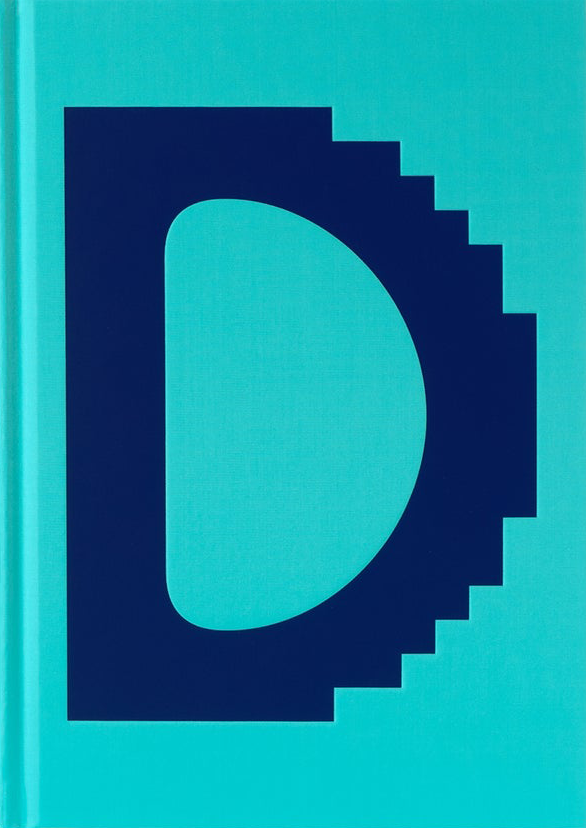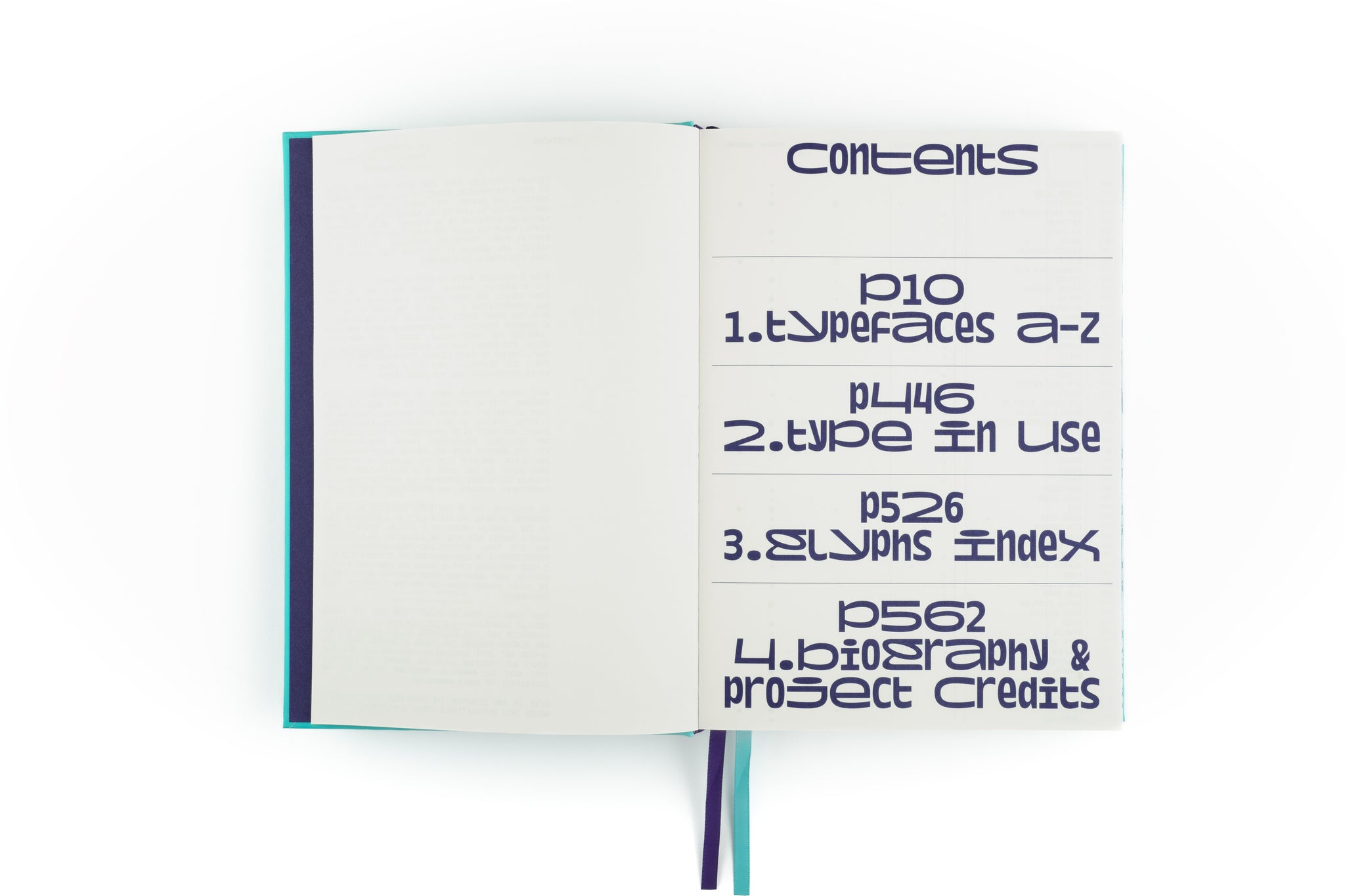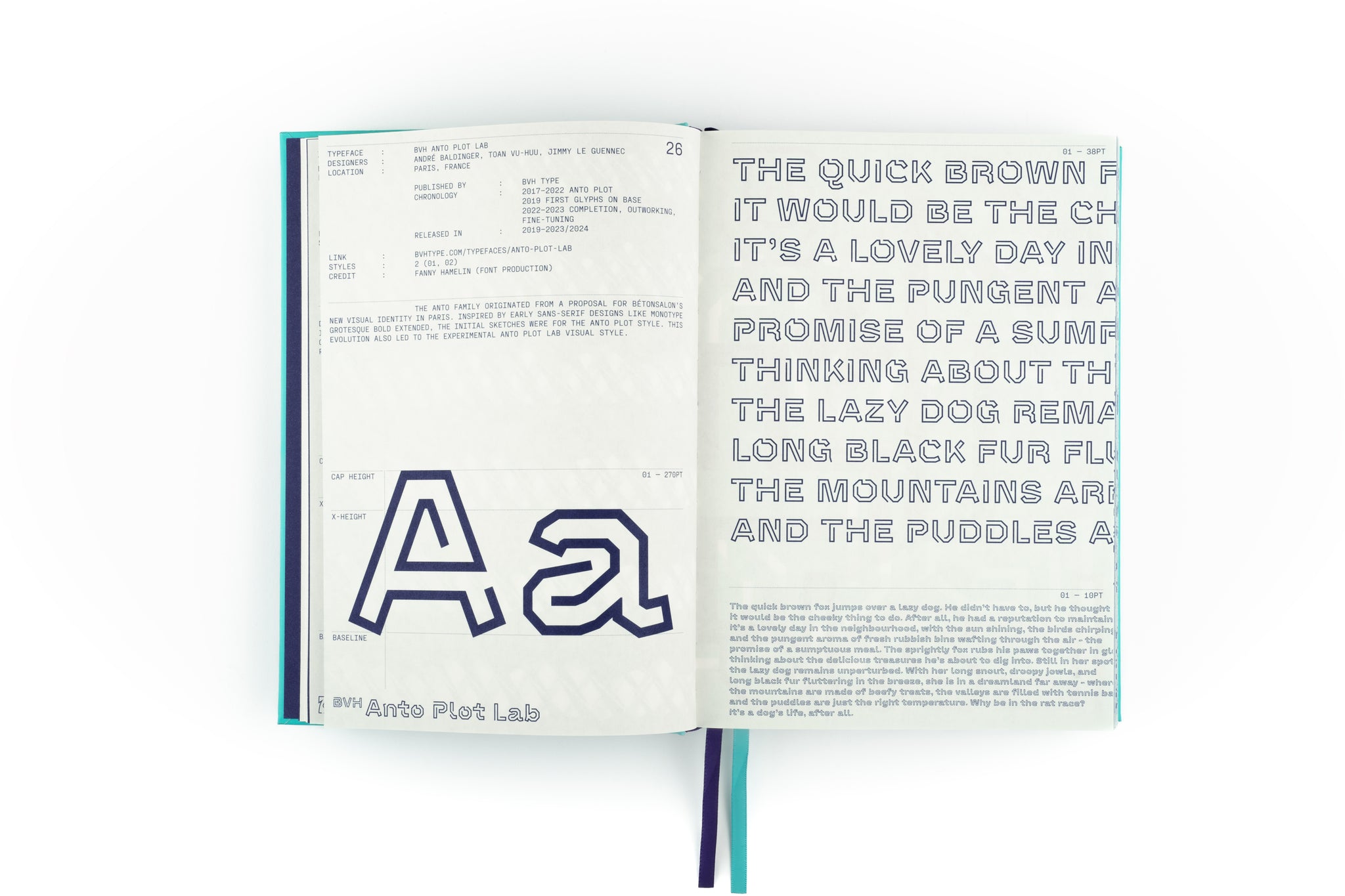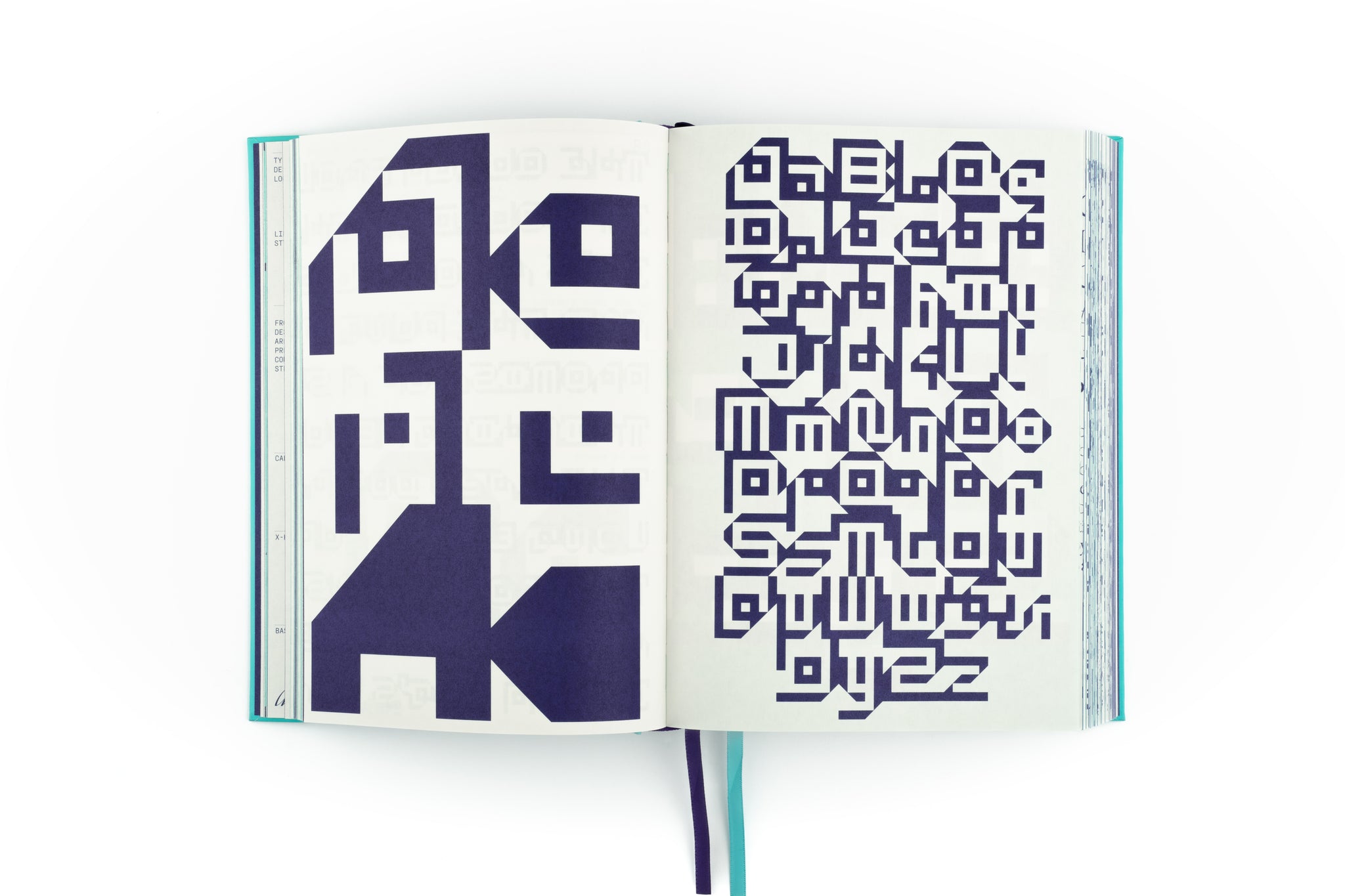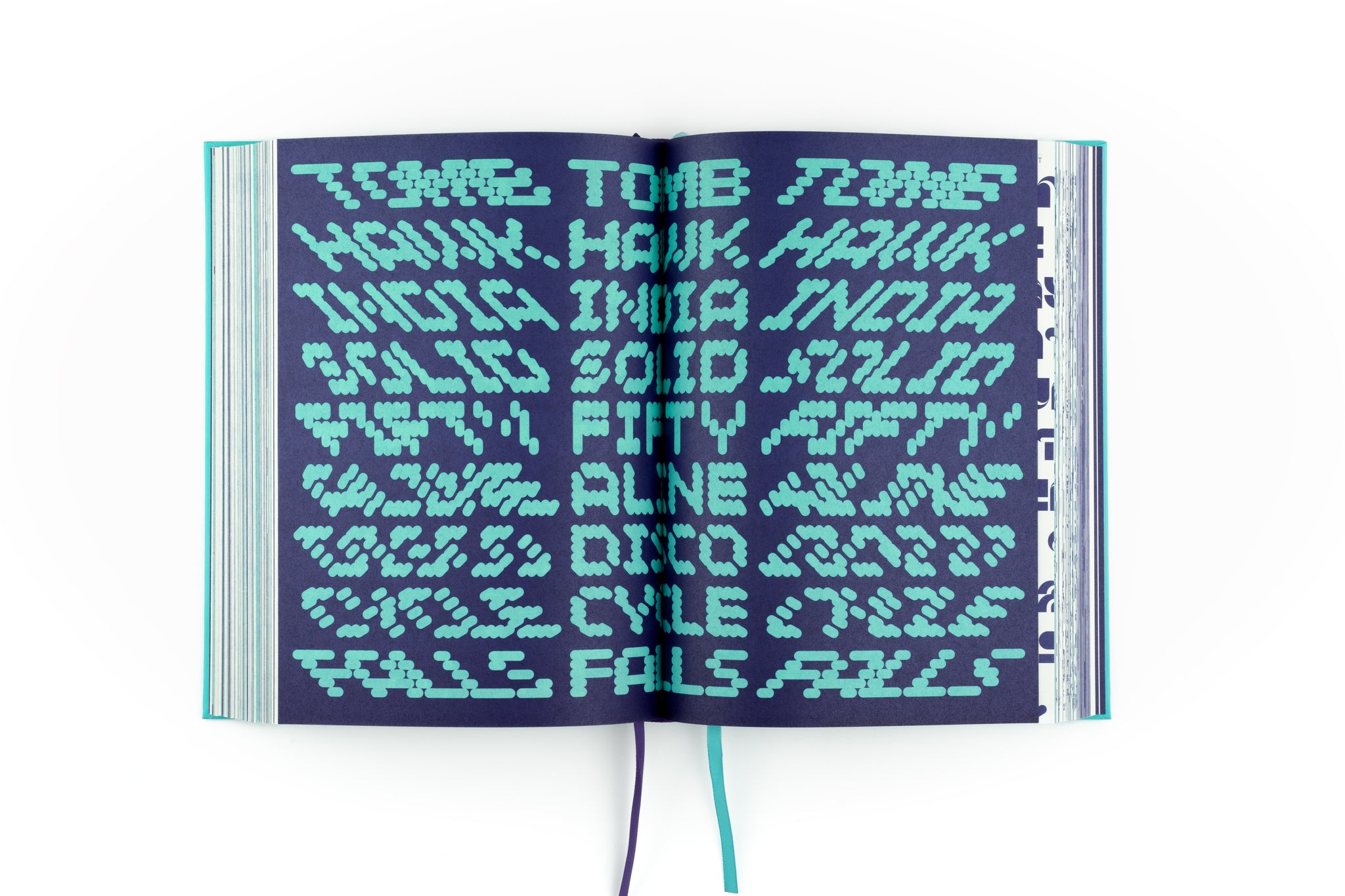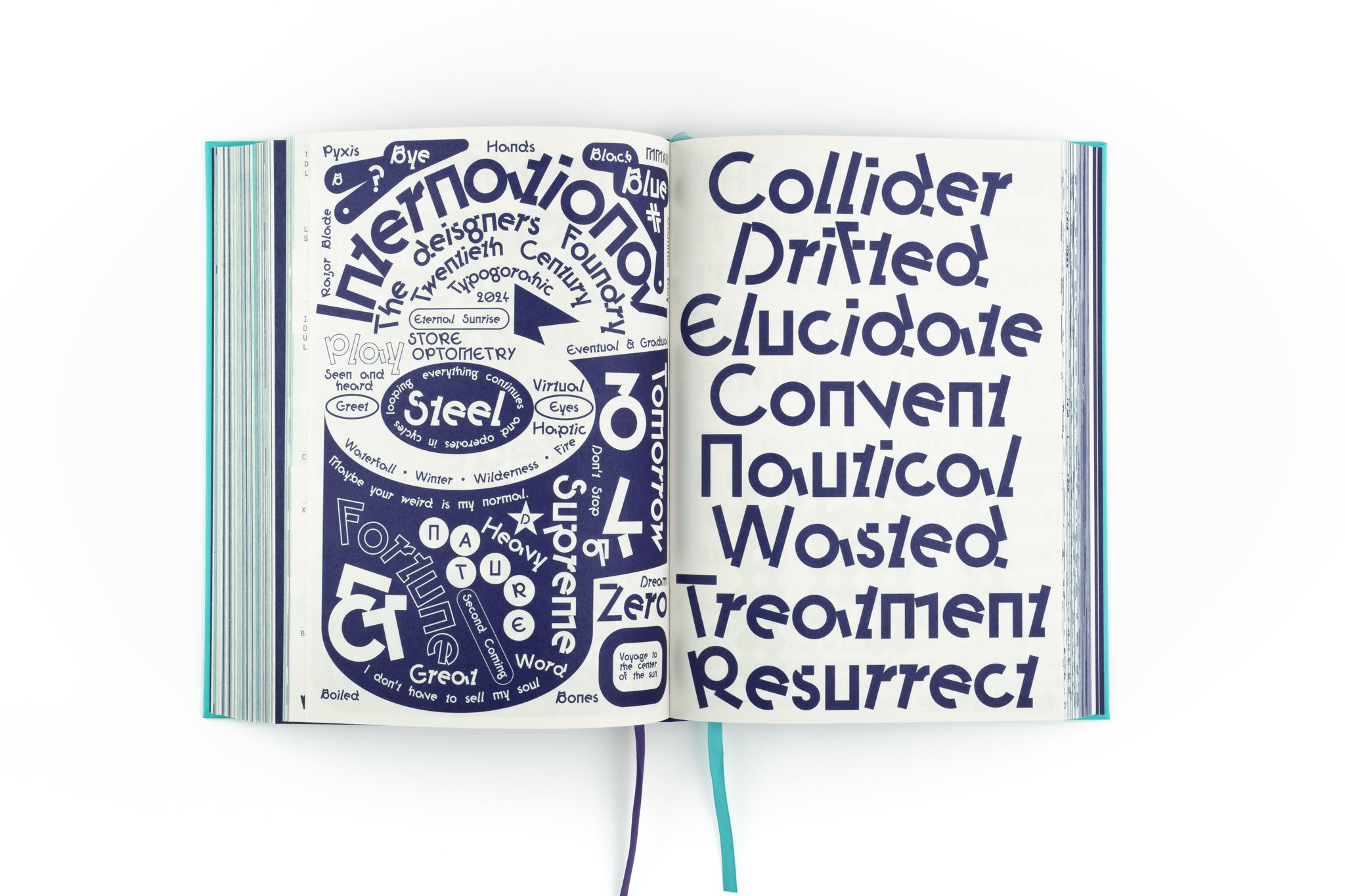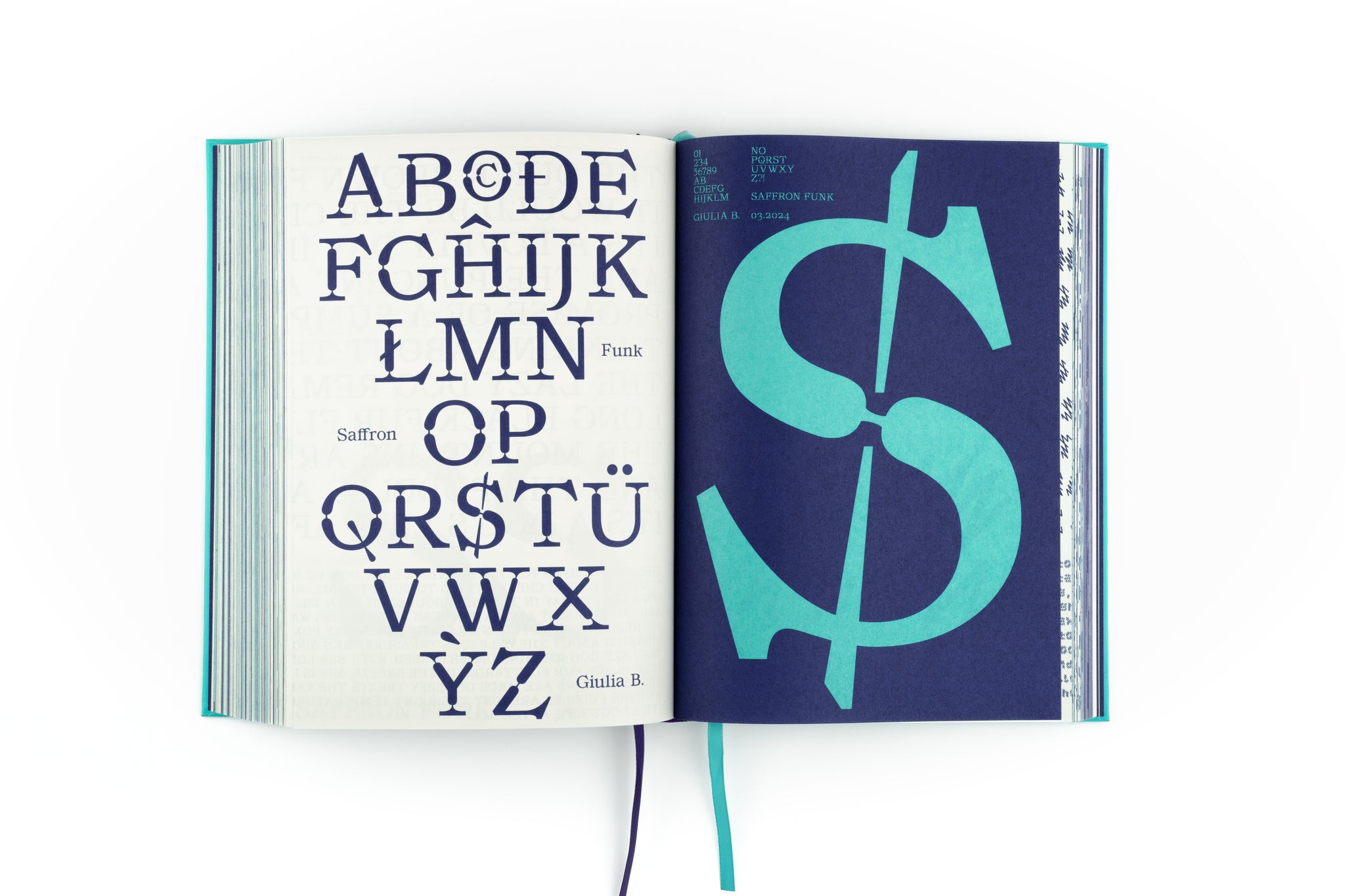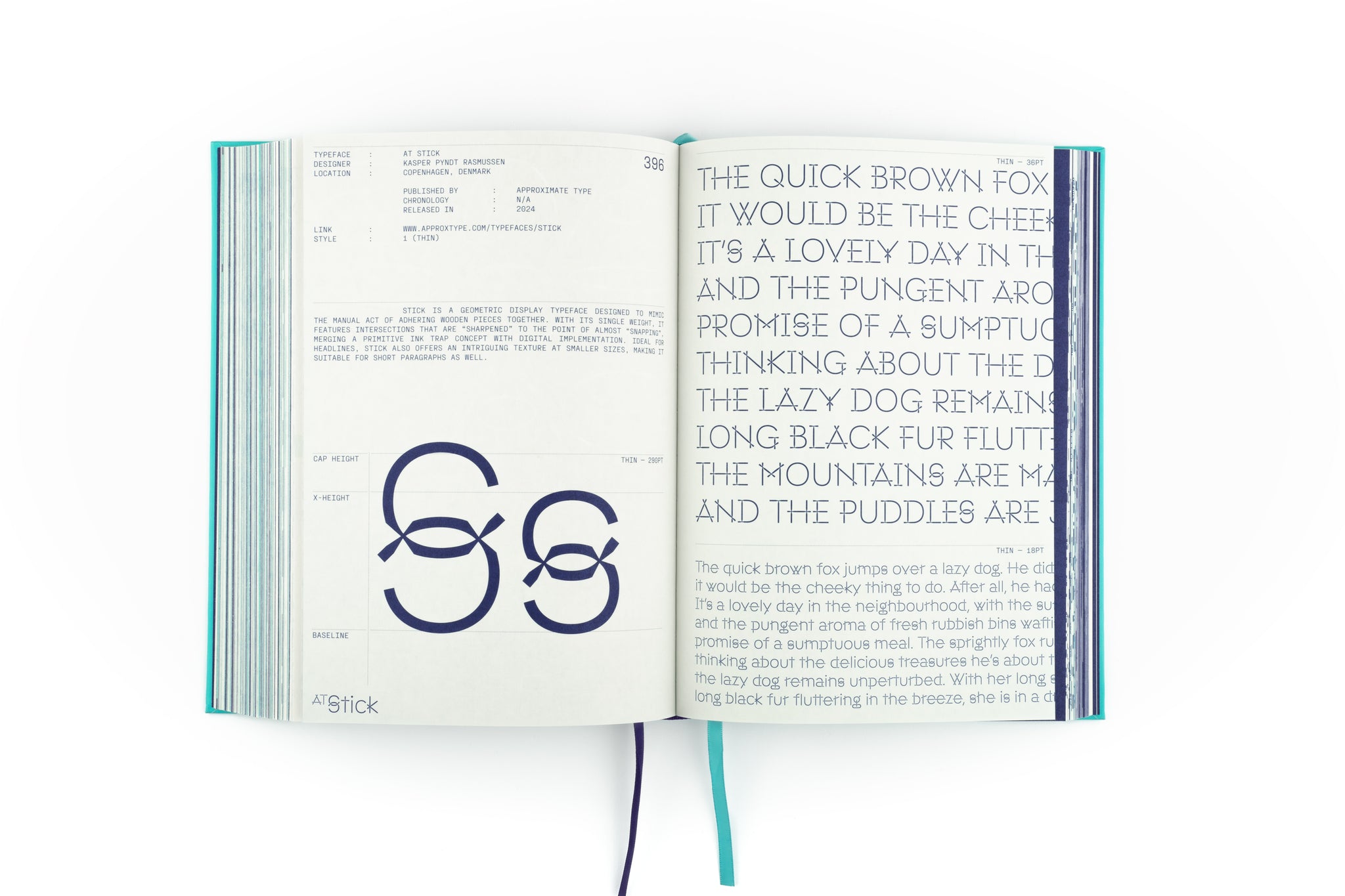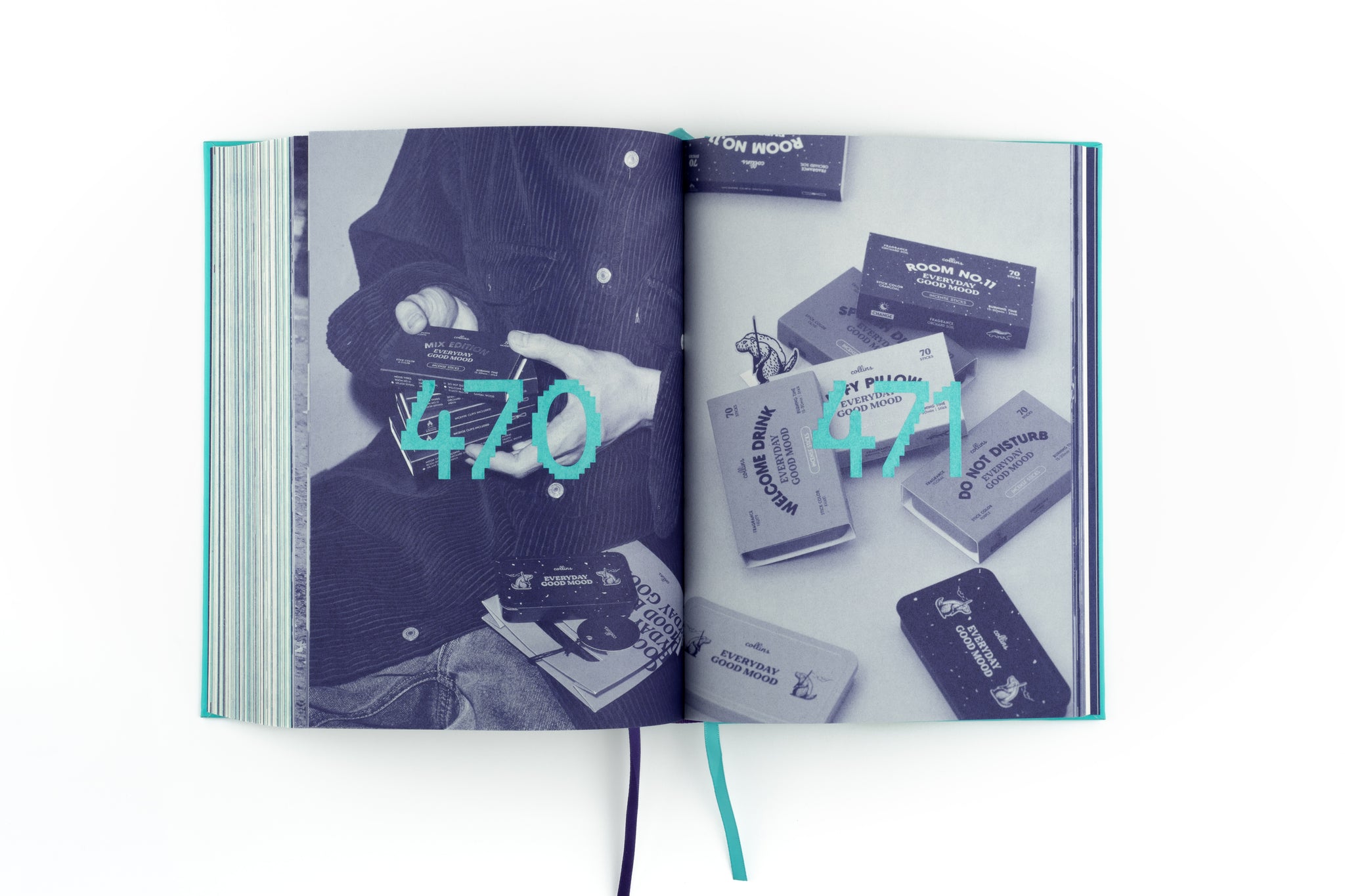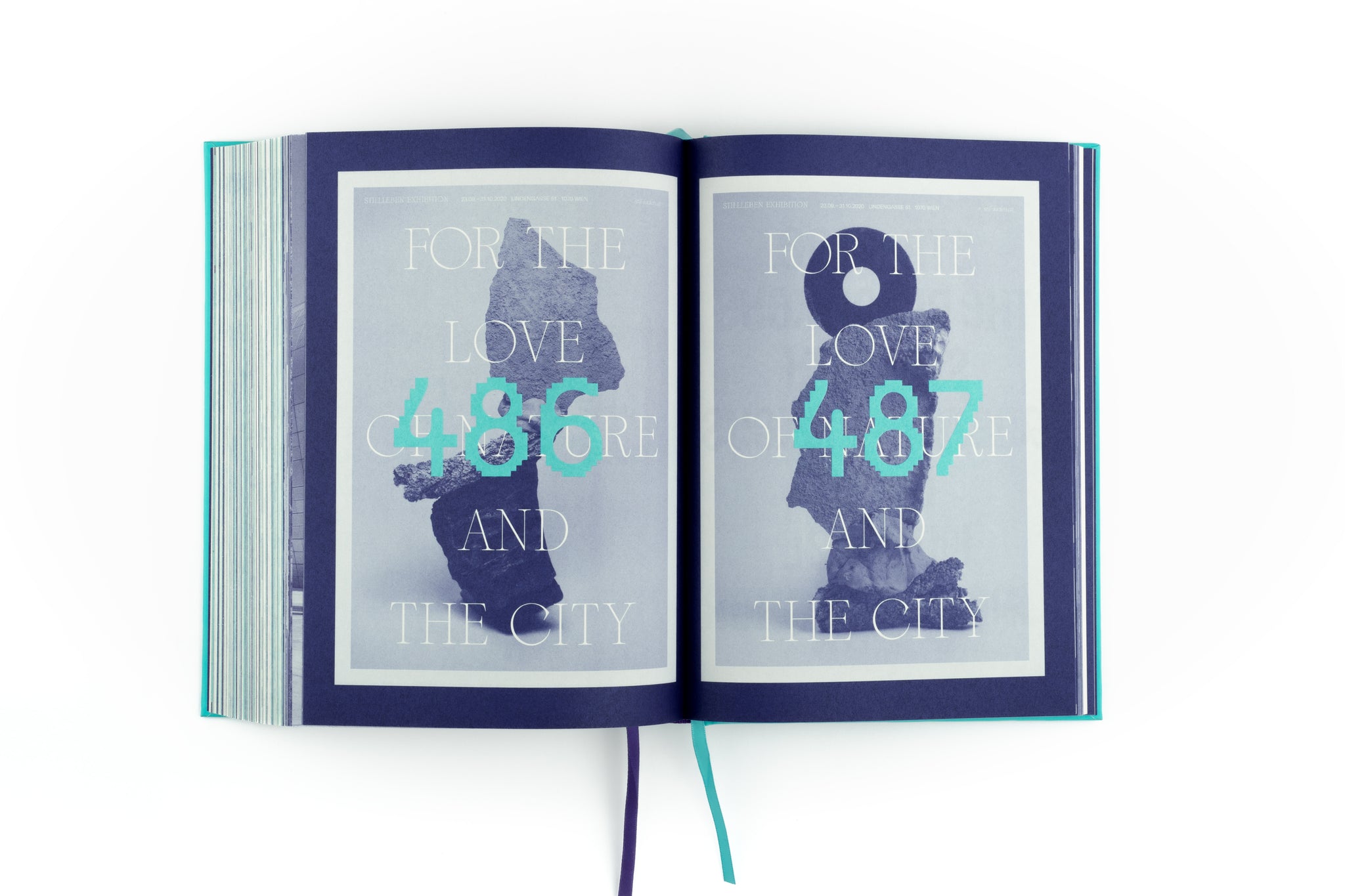
Display in Use: A Collection of Display Typefaces
Renowned for their bold and attention-grabbing nature, display fonts are a brand’s go-to if it is looking to stand out visually in a sea of competition. Known for their intricate details, expressive style, playful elements, and varied weights, they are adaptable across diverse design contexts, seamlessly integrating into print, digital, and beyond. Display fonts also play a crucial role in determining a brand’s personality and impressions at first glance.
A continuation of the Sans/Sans Serif in Use collection, this edition features a curated selection of display type specimens, their design applications, and the thoughts that go behind the craft. Display in Use collates the best typefaces for big canvases and serves as a reference point for inspiration-seeking designers and typographers alike.